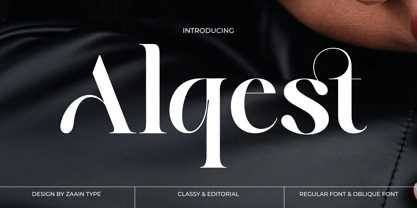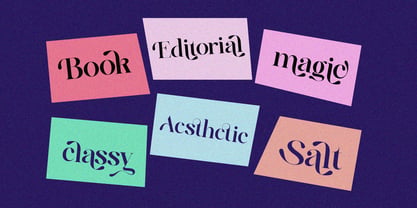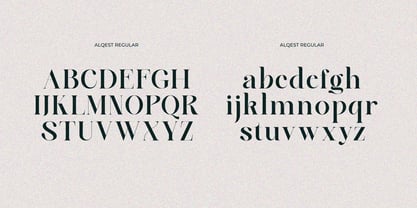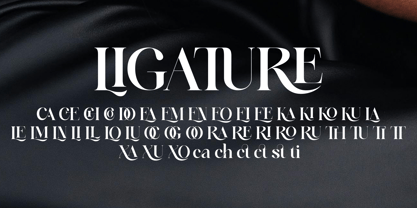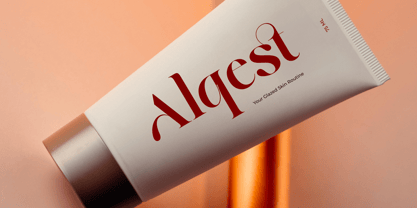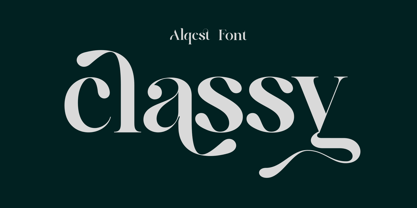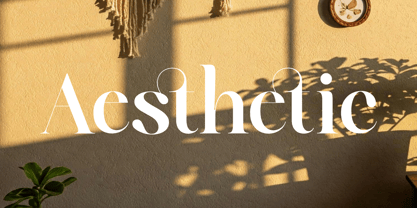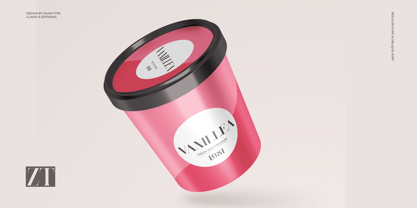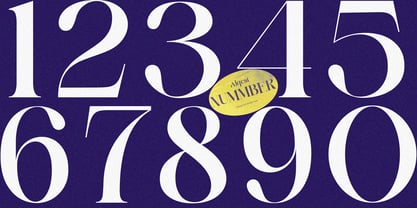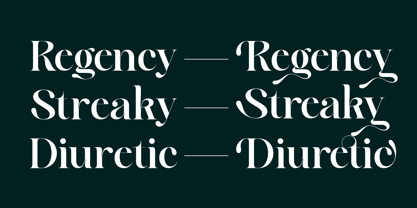
Alqest
by Zaain Type
The Alqest Font Family was designed by Ju Naen and published by Zaain Type. Alqest contains 2 styles and family package options. More about this family
Alqest is a serif typeface that blends classic elegance with a subtle modern touch. Its characters are crafted with balanced proportions, smooth thick-to-thin contrast, and refined serif details—creating a sophisticated look without feeling excessive.
Perfect for editorial design, premium branding, fashion, and striking headlines, Alqest delivers a timeless aesthetic that remains versatile across various design styles